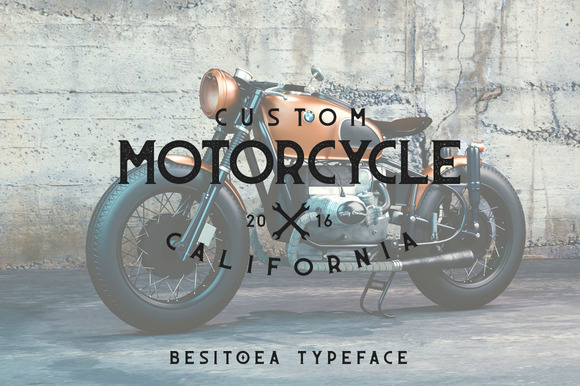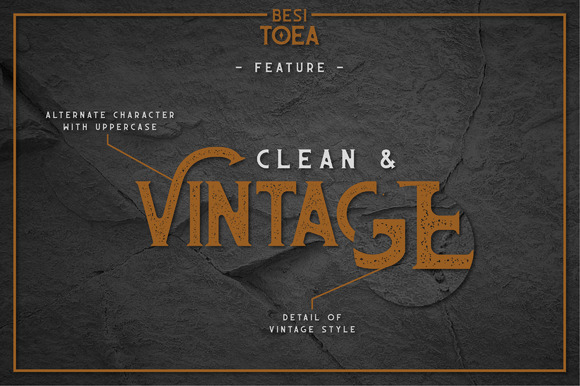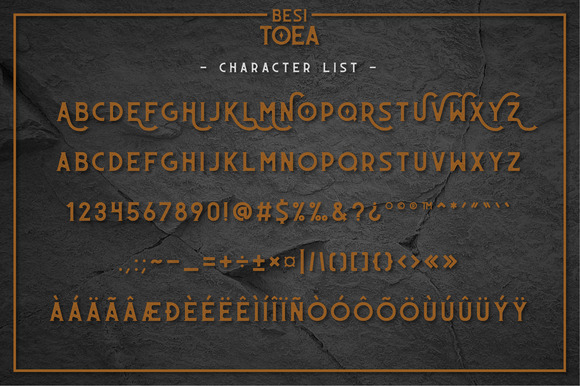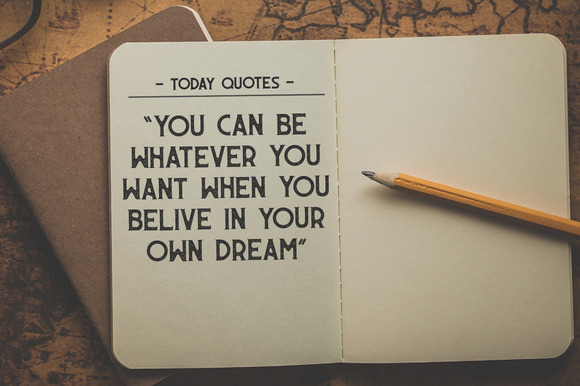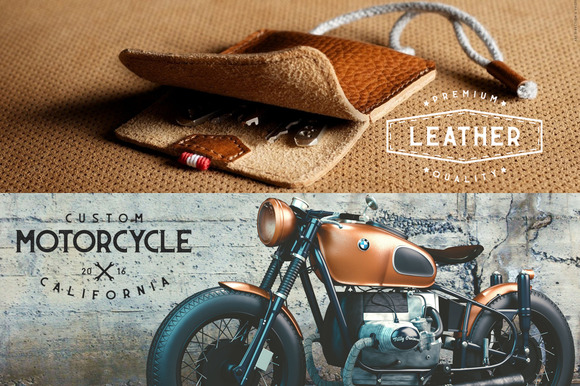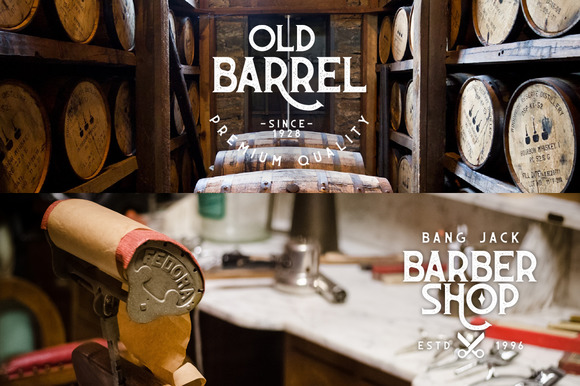
Discovering the Hidden Gem of Besitoea Font
As a designer, have you ever stumbled upon a font that perfectly captures the essence of a bygone era? A font that instantly transports you to a world of nostalgia and charm? For me, that moment came when I discovered the Besitoea Font. Its unique blend of Asian beer labels and vintage flair had me hooked from the very start.
What I love about the Besitoea Font is its clear readability, making it an excellent choice for designers looking to create retro-inspired designs without sacrificing legibility. The Besitoea Font comes in two variations: Regular and Vintage, each offering a distinct aesthetic that can be tailored to suit your design needs.
Whether you’re working on a branding project or a creative campaign, the Besitoea Font is an invaluable addition to any designer’s toolkit. Its versatility and charm make it an excellent choice for anyone looking to add a touch of nostalgia and sophistication to their designs.
Besitoea Font Key Features
- Font Family: Besitoea Font is a sans-serif font family designed for modern and minimalist designs. It is available in multiple weights and styles.
- Character Set: The font includes a comprehensive character set, including Latin, Cyrillic, and Greek alphabets, as well as punctuation and symbols.
- Size: The font is available in 5 weights, ranging from Light to Bold, each with its unique characteristics and applications.
- Resolution: Besitoea Font is designed to be resolution-independent, making it suitable for use in various digital and print media, including web design, signage, and advertising.
- Unique Characteristics: The font’s unique geometric shapes and clean lines give it a modern and sleek appearance, making it ideal for use in corporate identities, logos, and branding materials.
Designer Review: Besitoea Font
Overall, I’m impressed with the Besitoea Font, but like any typeface, it has its strengths and weaknesses. ✨ Here are a few things that work well:
- Unique design: Besitoea Font has a distinct, modern aesthetic that sets it apart from more traditional fonts.
- Highly legible: The font is easy to read, even at smaller sizes, making it suitable for body text and display use.
- Good for creative projects: The font’s quirky, offbeat feel makes it perfect for creative projects, such as branding, advertising, and editorial design.
- Not suitable for formal documents: Due to its unconventional design, Besitoea Font may not be the best choice for formal documents, such as business reports or academic papers.
- Limited font sizes: While the font is highly legible, it may not be as effective at larger or smaller font sizes.
- Not a good choice for text-heavy content: Due to its unique design, Besitoea Font may be overwhelming if used extensively in text-heavy content.
Overall, I think the Besitoea Font is a great addition to any designer’s toolkit. While it may not be suitable for every project, it’s perfect for creative, modern designs that require a touch of uniqueness.
Tips for Getting the Most Out of Besitoea Font
To get the most out of Besitoea Font, consider the following tips:
- Use it sparingly to create a bold and eye-catching effect.
- Pair it with other fonts to create a unique and stylish typography.
- Experiment with different font sizes and colors to find the perfect combination.